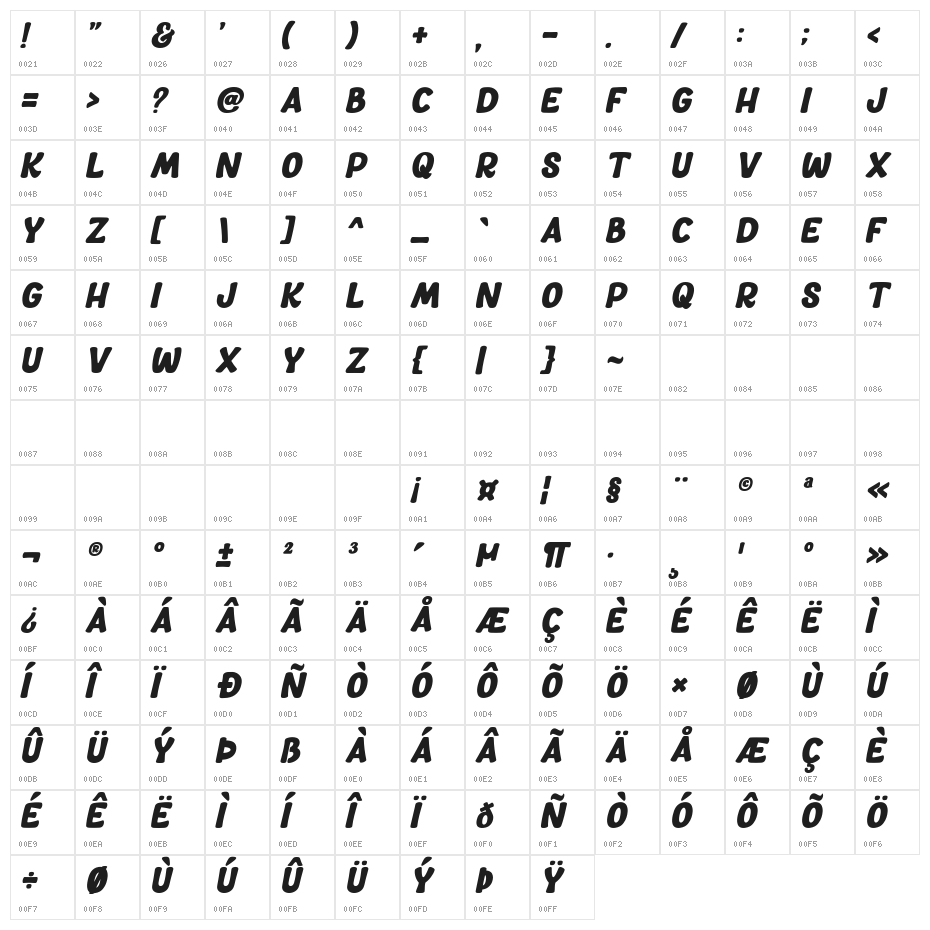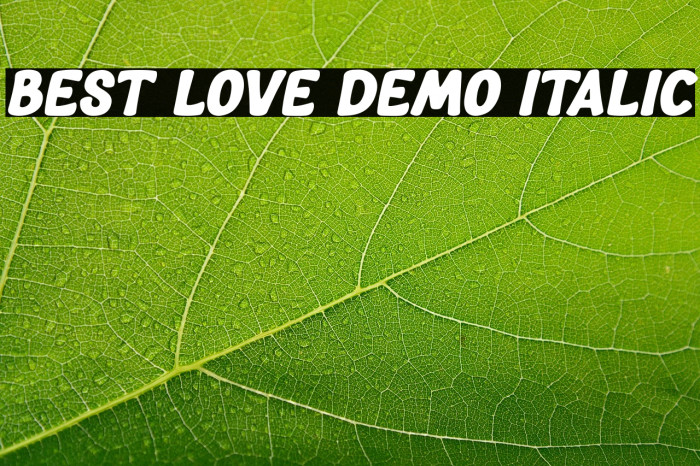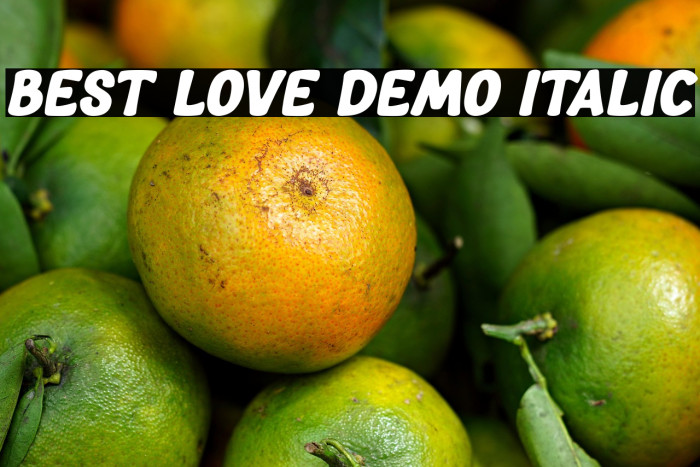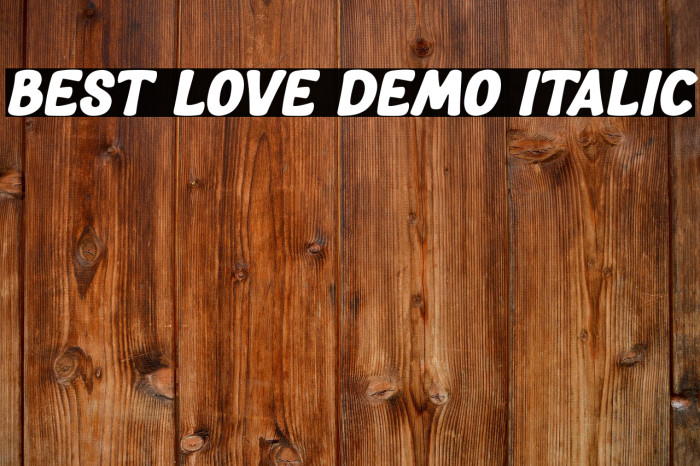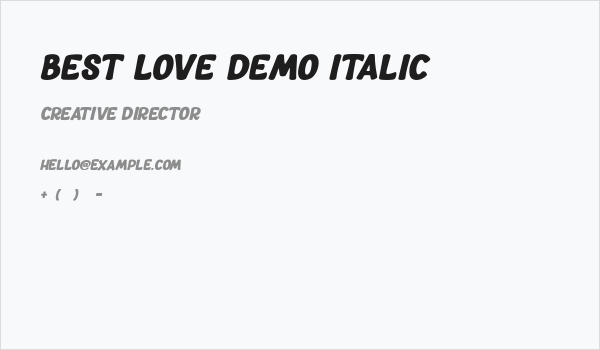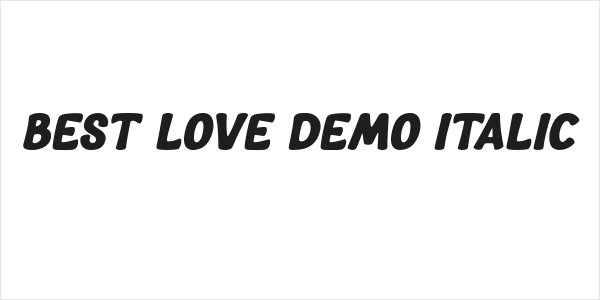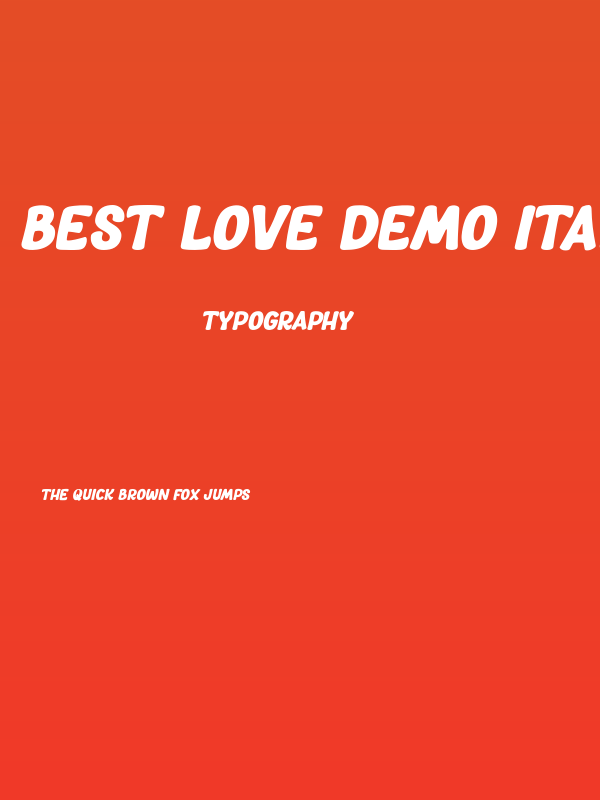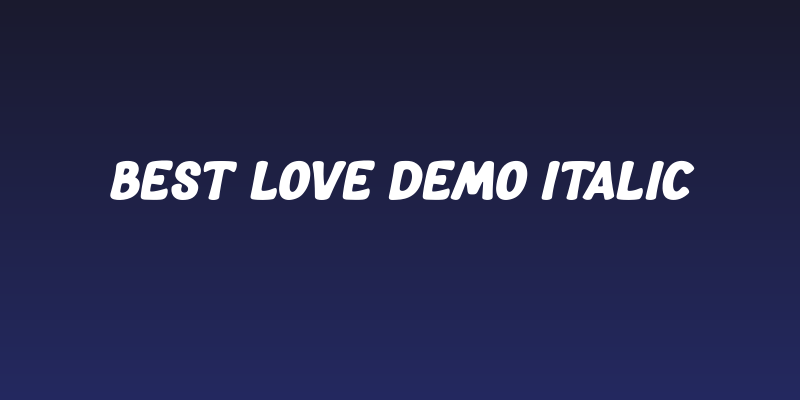
Best Love DEMO Italic Font
Best Love DEMO Italic Description
This font features a bold and dynamic style with a playful and energetic flair. The letters are italicized, giving them a forward-leaning posture that suggests movement and excitement. The strokes are thick and rounded, contributing to a friendly and approachable appearance. The characters are closely spaced, enhancing the compact and cohesive look of the text. This font is particularly suitable for projects that require a lively and engaging visual impact, such as posters, advertisements, and branding materials. Its boldness and unique style make it stand out, capturing attention effectively.
| Proposed Projects | Ideal for posters, advertisements, branding, and any project needing a lively and engaging font. |